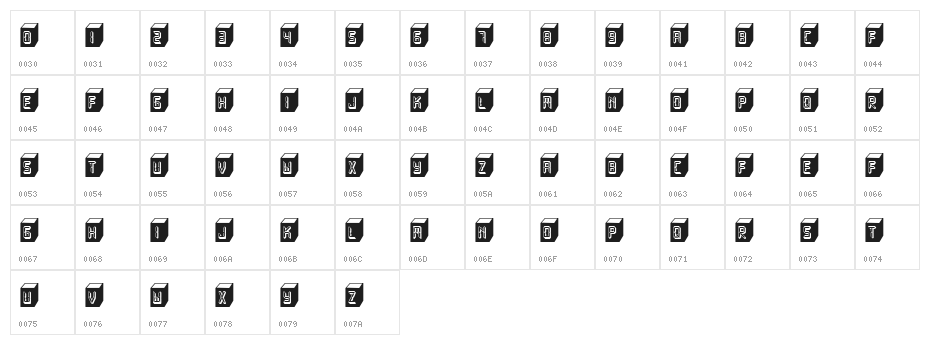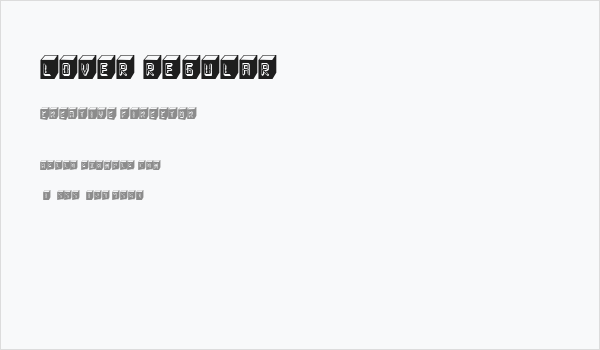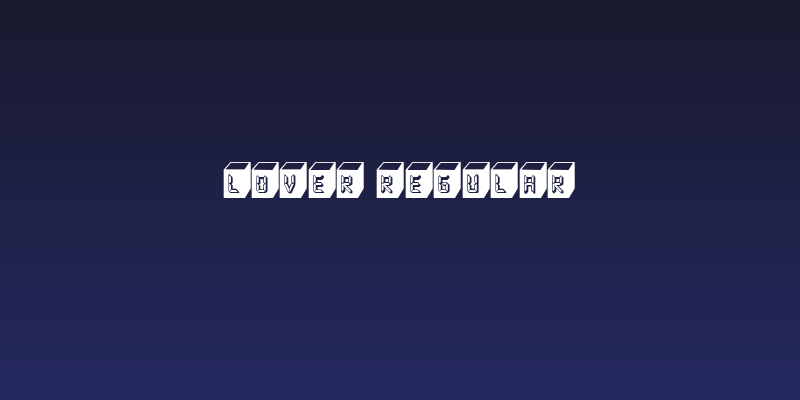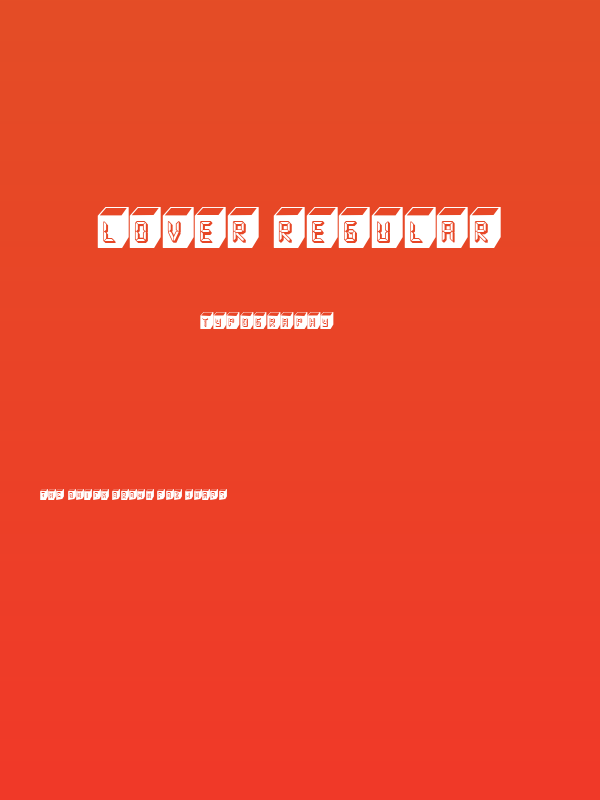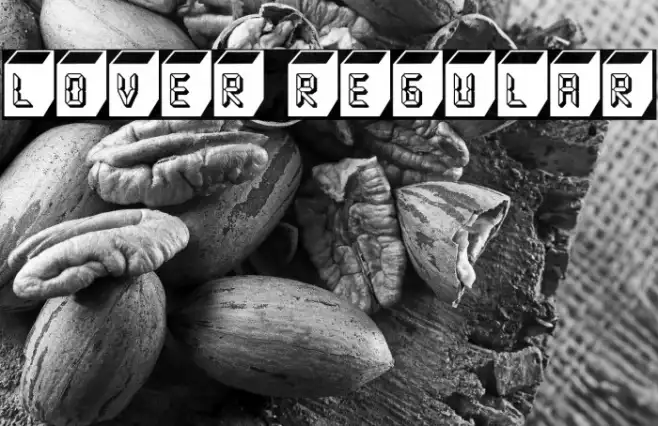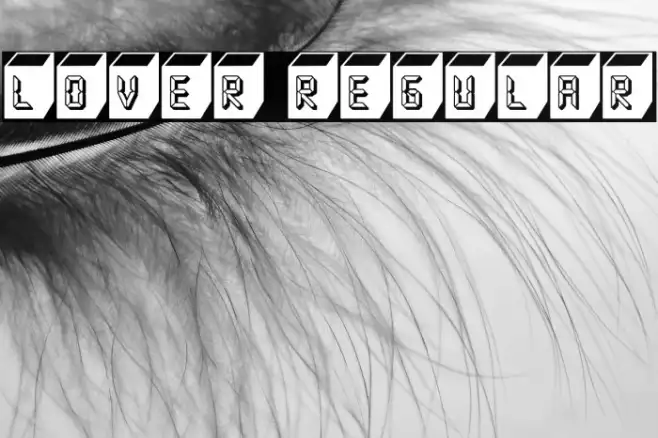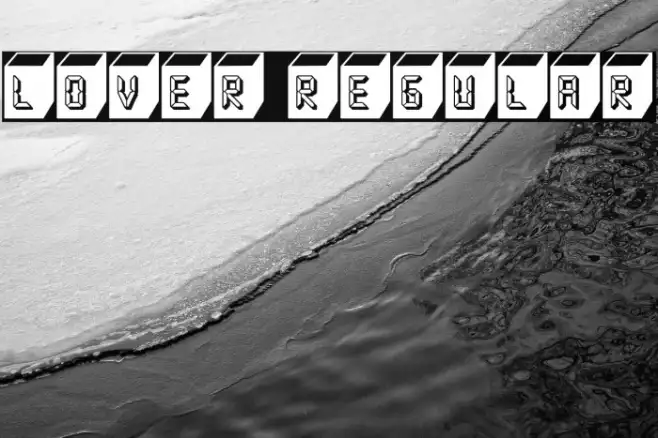
Lover Regular Font
Lover Regular Description
This font features a unique 3D block design, with each character appearing as if it is emerging from a solid cube. The letters are outlined with a thin line, giving them a hollow appearance, while the shadow effect adds depth and dimension. The geometric style is consistent across uppercase, lowercase, and numeric characters, creating a cohesive and striking visual impact. The font's bold and structured form makes it ideal for attention-grabbing designs.
| Proposed Projects | Ideal for posters, book covers, video game graphics, and any project requiring a bold, futuristic look. |